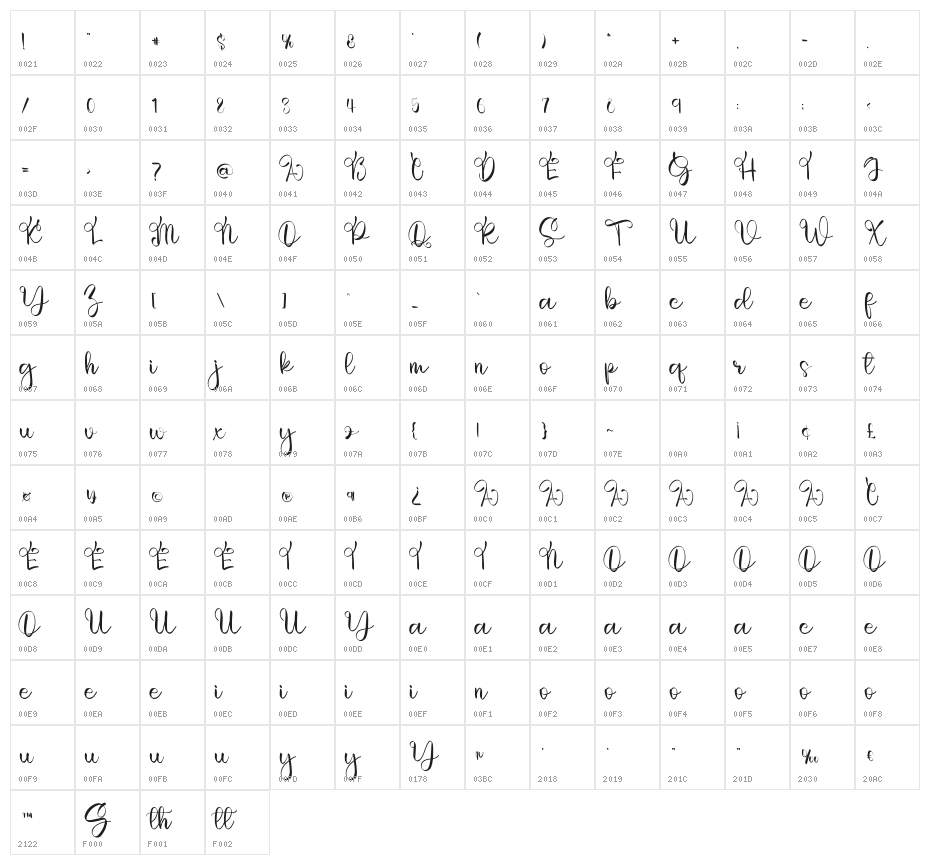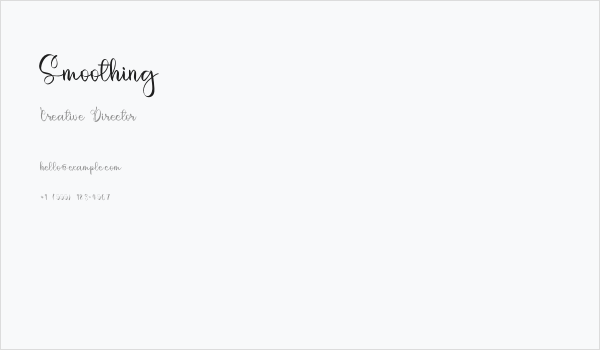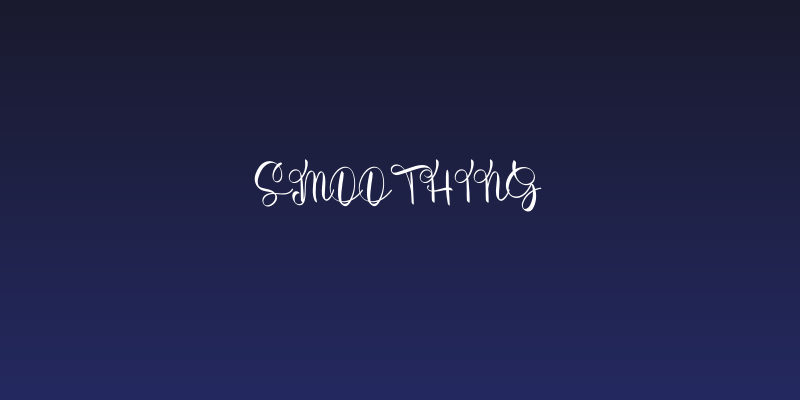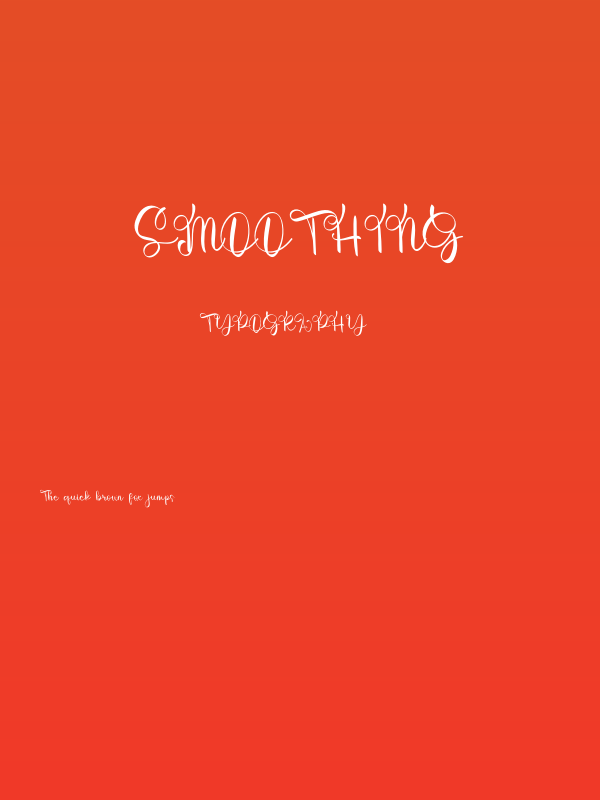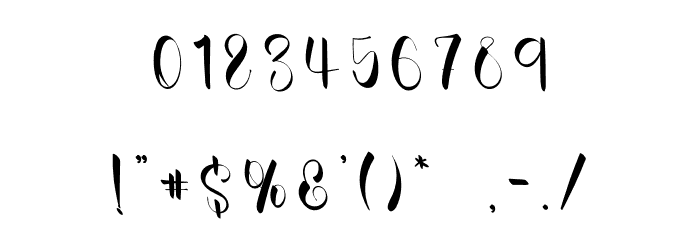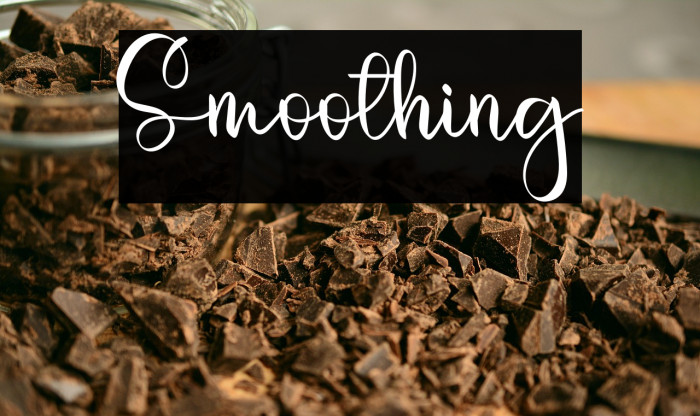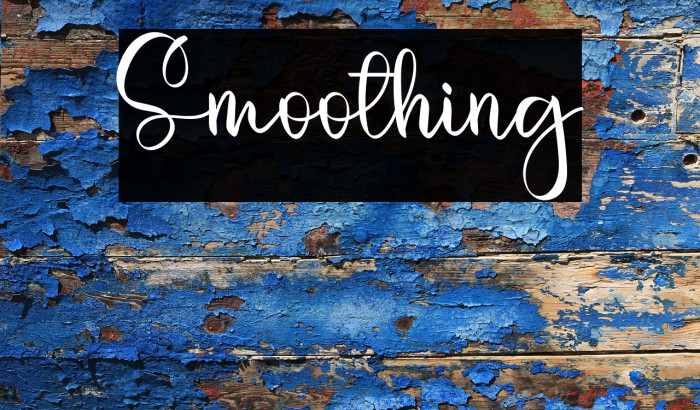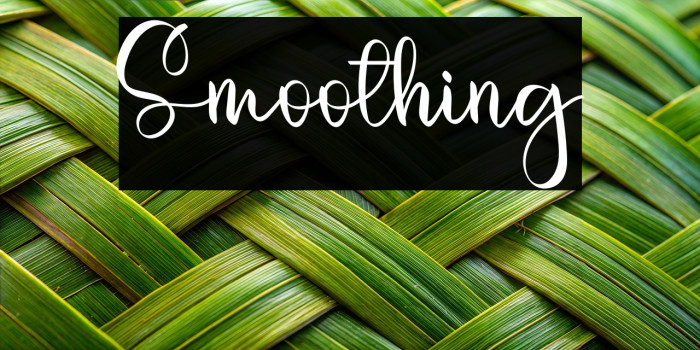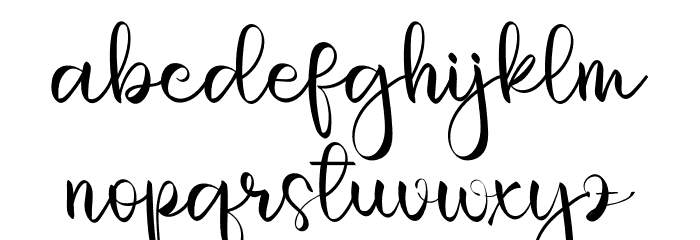
Smoothing Font
Smoothing Description
This font features a whimsical and elegant script style with a playful, handwritten feel. The uppercase letters are characterized by intricate loops and swirls, giving them a decorative appearance. The lowercase letters maintain a consistent flow, with smooth curves and a slightly exaggerated height, adding to the font's charm. The numerals are distinct and maintain the same playful style, ensuring readability. Special characters are creatively designed, complementing the overall aesthetic. This font is perfect for projects that require a touch of elegance and personality.